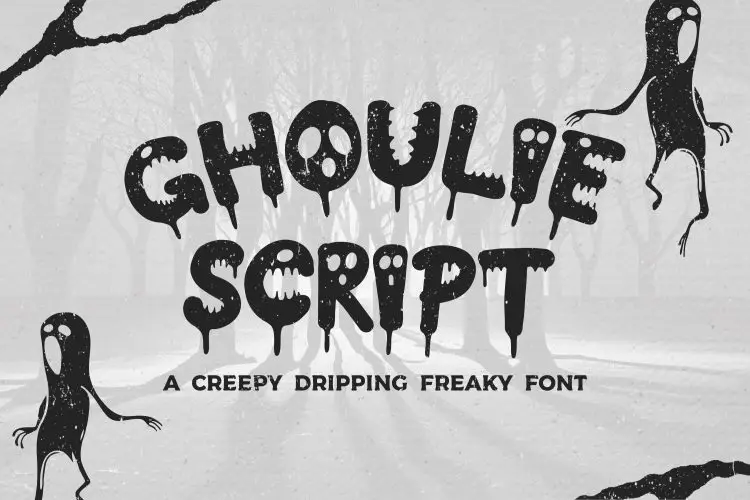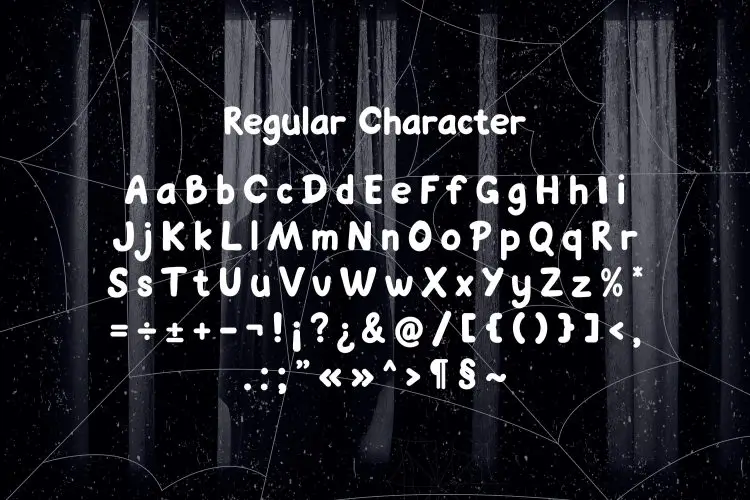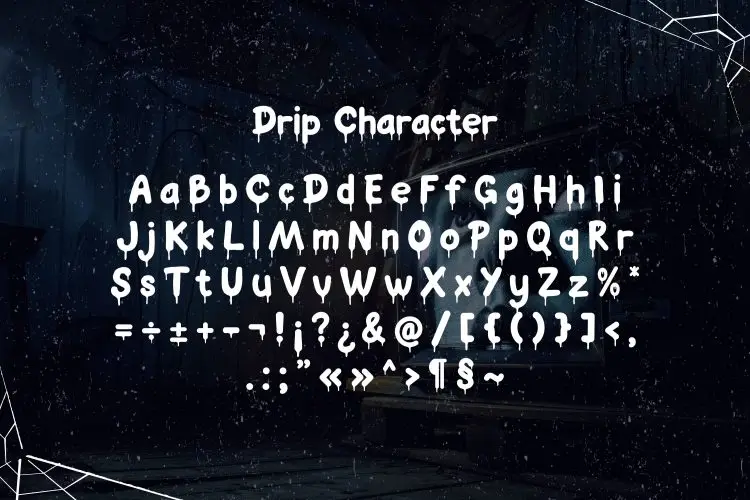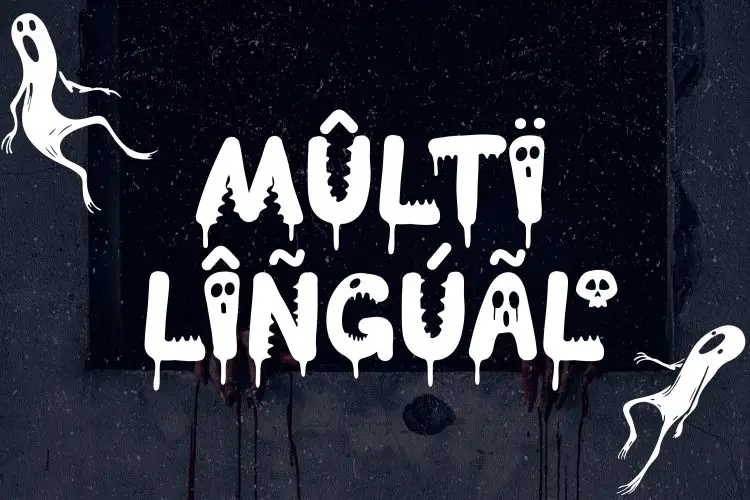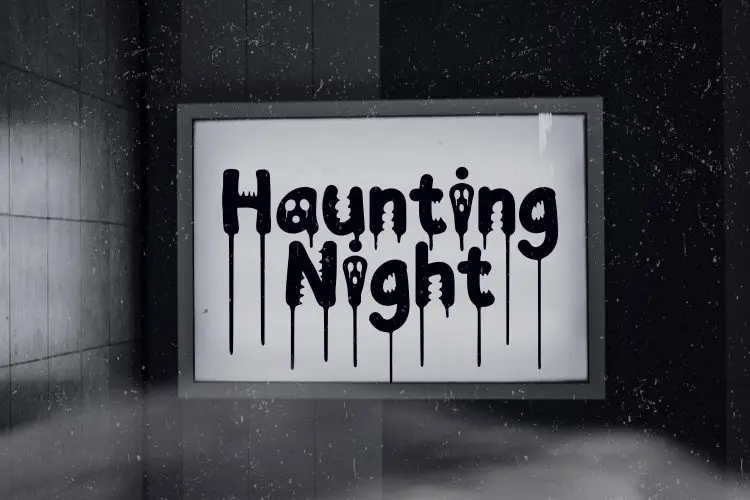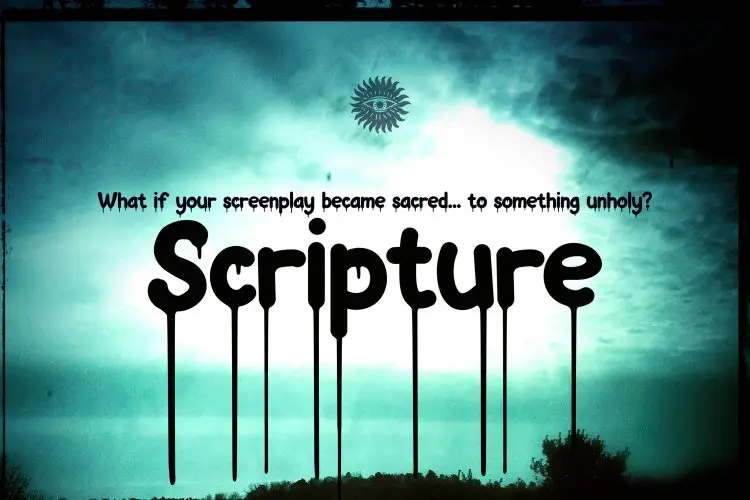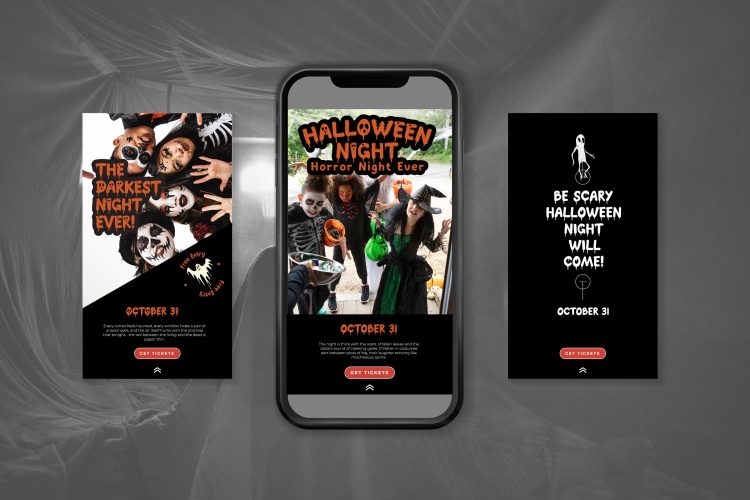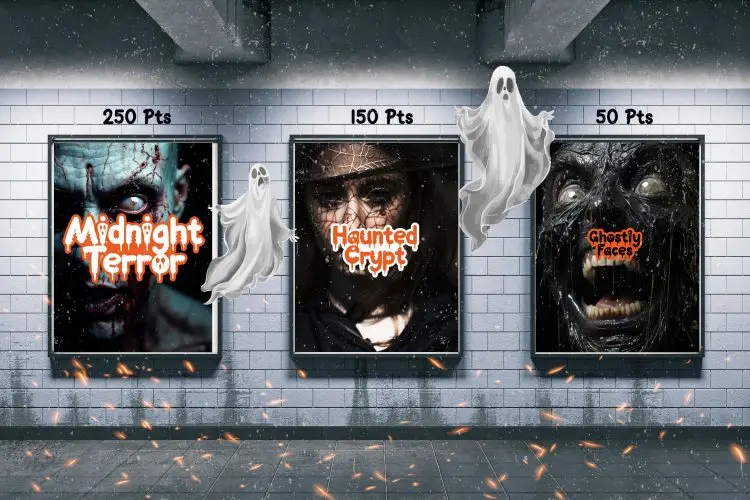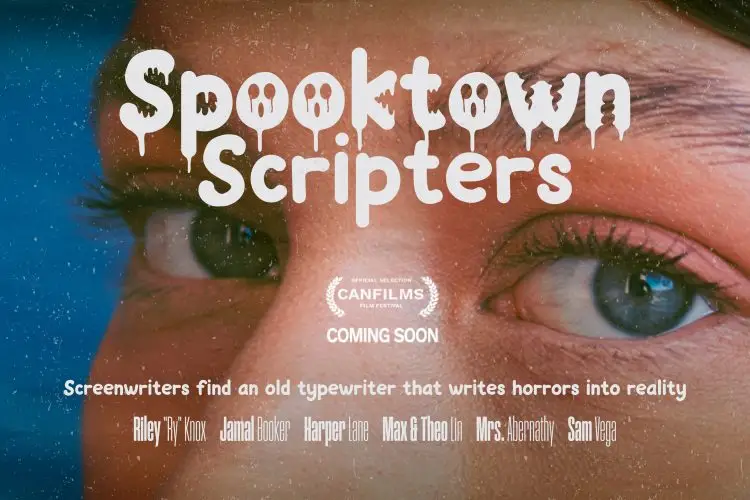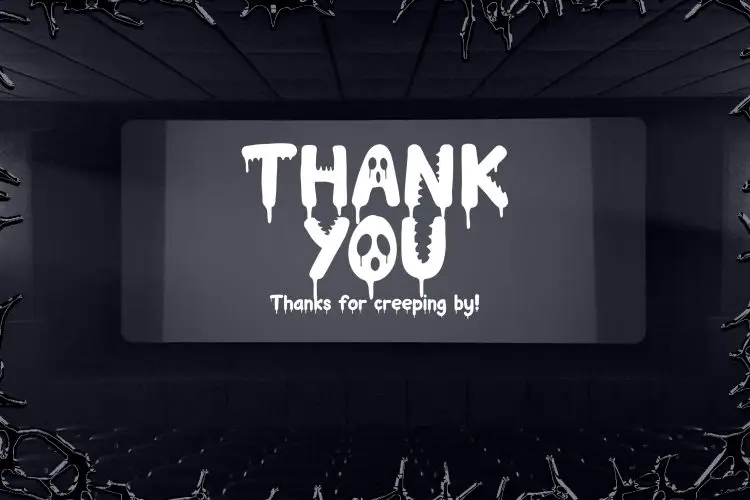
Ghoulie Script – Creepy Dripping Freaky Font
Ghoulie Script
Ghoulie Script Drip
Ghoulie Script Monster
Introducing Ghoulie Script: Creepy Dripping Freaky Font
Ghoulie Script is a horror display font full of character. Each letter looks like it’s melting and dripping like slime, with creepy details such as hollow eyes peering from inside the glyphs. This font creates a freaky and creepy vibe, perfect for audiovisual projects, horror packaging, or Halloween memes.
Style & Vibe: Dripping, freaky, creepy, display horror
Target Market: Halloween content designers, indie film poster creators, horror game developers, horror-themed social media creators
Letter Structure: Bold display with dripping effects, organic silhouettes to create a spooky mood
Ideal Use: Movie posters, horror festival branding, creepy YouTube thumbnails, Halloween merchandise, horror book covers, eerie visual templates
Want your design to be instantly recognized as the scariest? Ghoulie Script delivers letters dripping like the cold mist of Halloween night—visuals that turn fear into an audience magnet. Perfect for posters, horror game covers, or anti-mainstream memes that give chills instantly.
Key Features
• Drippy & Messy: Melting letter effects that are visually captivating and unforgettable
• Bold Display Ready: Stands out at any size—every word looks dramatic
• Macabre Playful Style: Unique combination of spooky and artistic elements